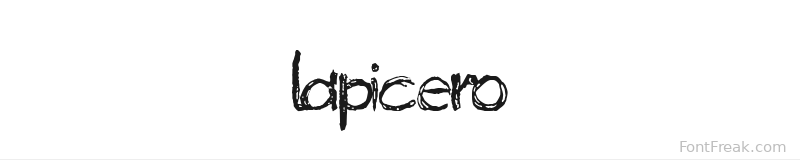
Lapicero
Lapicero, a captivating creation by woodcutter Manero, is a handwritten font that showcases a unique blend of artistic flair and organic charm. As a display typeface, Lapicero stands out with its distinctive, playful strokes that mimic the fluidity of hand-drawn letters. The font features a moderate stroke weight with subtle variations, creating a pleasing contrast that enhances its visual appeal. The spacing between characters is thoughtfully designed, allowing for easy readability while maintaining a whimsical style. Decorative elements, such as slight irregularities in letterforms, lend an authentic touch, reminiscent of personal notes or creative sketches.
This font is ideal for a variety of creative applications. It shines in wedding invitations, where its charming and informal style can convey a sense of warmth and intimacy. Lapicero is also perfect for movie posters, especially for indie films seeking to evoke a nostalgic or artistic vibe. Restaurant menus can benefit from its inviting aesthetics, making dishes feel more approachable and appealing. Additionally, it serves well in branding for artisanal products, where a handcrafted look can enhance the brand’s narrative. Content creators and graphic designers will find Lapicero to be an excellent choice for social media graphics, where eye-catching visuals are essential.
The target audience for this font includes graphic designers, small business owners, and content creators looking to add a unique touch to their projects. Lapicero font free download is an opportunity for anyone wanting to infuse their designs with creativity and personality. What sets Lapicero apart is its ability to blend professionalism with a handcrafted feel, making it a versatile choice for various creative endeavors. Its distinctive style and approachable nature ensure that it will leave a memorable impression in any context.